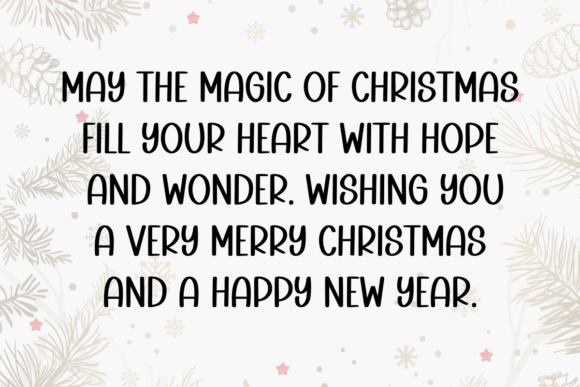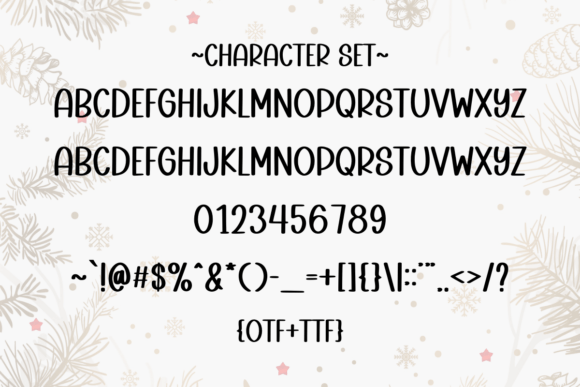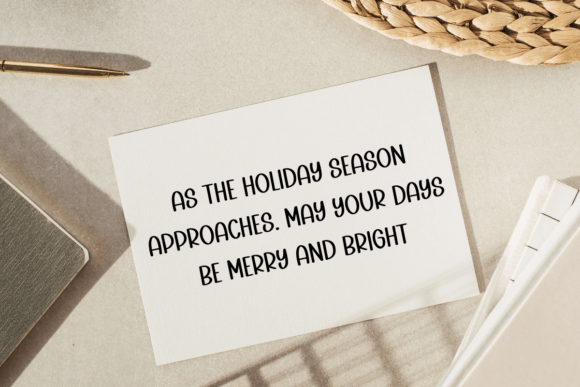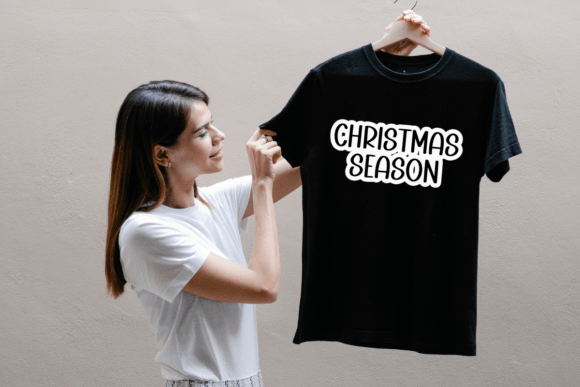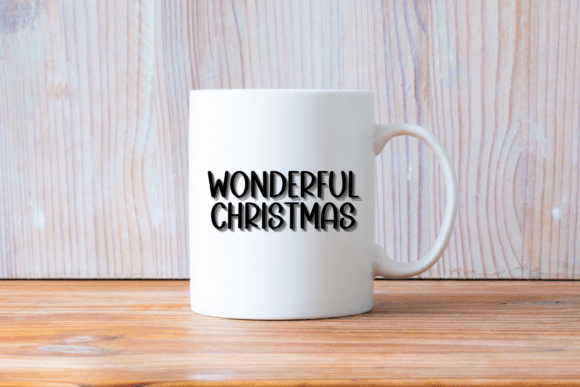
Happy Christmas Font: The Perfect Addition to Your Holiday Designs
Are you looking for a font that captures the fun and festive spirit of Christmas? Look no further than the Happy Christmas font! This bold and playful sans serif font is perfect for a variety of designs that are retro, fun, cute, and bubbly. In this article, we’ll take a closer look at the Happy Christmas font, its features, and how you can use it to elevate your holiday designs.
What is Happy Christmas Font?
Happy Christmas font is a modern sans serif font that is specifically designed to bring a touch of fun and playfulness to your designs. Its bold and bubbly style makes it perfect for creating eye-catching headlines, titles, and text that will grab the attention of your audience. The font is highly versatile and can be used for a wide range of design projects, from holiday cards and invitations to social media graphics and website headers.
Key Features of Happy Christmas Font
The Happy Christmas font has several key features that make it a great addition to your font collection:
- Bold and Playful Style: The font has a bold and playful style that is perfect for creating fun and eye-catching designs.
- Sans Serif Design: The font has a clean and modern sans serif design that makes it easy to read and versatile for use in a variety of designs.
- Retro and Vintage Feel: The font has a retro and vintage feel that makes it perfect for designs that require a nostalgic touch.
- Highly Legible: The font is highly legible, making it perfect for use in body text, headlines, and titles.
How to Use Happy Christmas Font in Your Designs
The Happy Christmas font is highly versatile and can be used in a variety of designs, including:
- Holiday Cards and Invitations: Use the font to create fun and festive holiday cards and invitations that will grab the attention of your recipients.
- Social Media Graphics: Use the font to create eye-catching social media graphics that will help your posts stand out from the crowd.
- Website Headers and Titles: Use the font to create bold and eye-catching website headers and titles that will grab the attention of your visitors.
- Crafting and DIY Projects: Use the font to create fun and festive crafting and DIY projects, such as signs, banners, and decorations.
Tips for Using Happy Christmas Font
Here are some tips for using the Happy Christmas font in your designs:
- Use it Sparingly: Use the font sparingly to create emphasis and draw attention to specific parts of your design.
- Pair it with Other Fonts: Pair the font with other fonts to create visual interest and add depth to your design.
- Experiment with Colors: Experiment with different colors to find the perfect combination that matches your brand and design style.
- Have Fun: Most importantly, have fun and be creative with the font! The Happy Christmas font is designed to bring a touch of fun and playfulness to your designs, so don’t be afraid to experiment and try new things.
The Happy Christmas font is a fun and bold sans serif font that is perfect for a variety of designs that are retro, fun, cute, and bubbly. Its highly legible design and versatile style make it perfect for use in holiday cards, social media graphics, website headers, and crafting and DIY projects. With its bold and playful style, the Happy Christmas font is sure to bring a touch of fun and festivity to your designs. So why not give it a try and see how it can elevate your holiday designs?